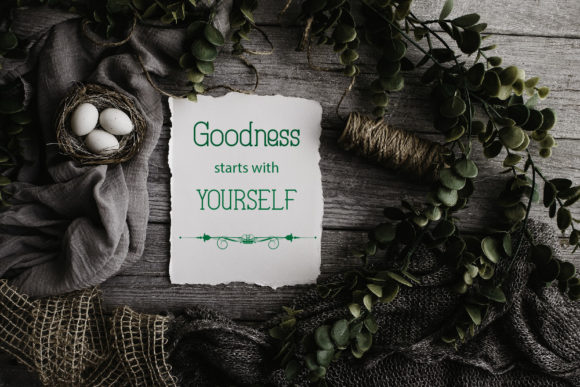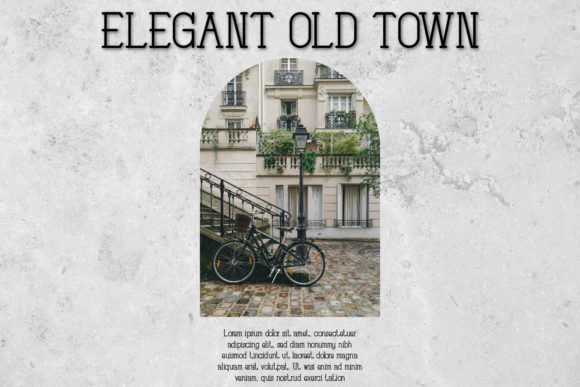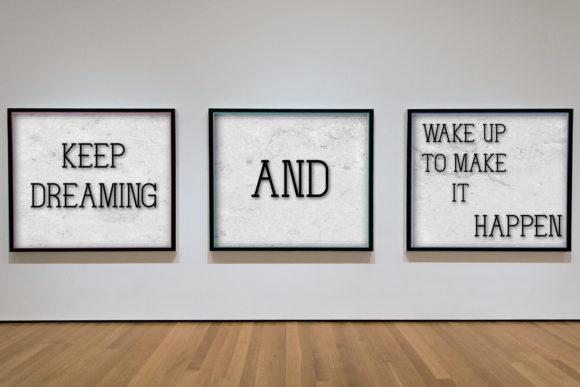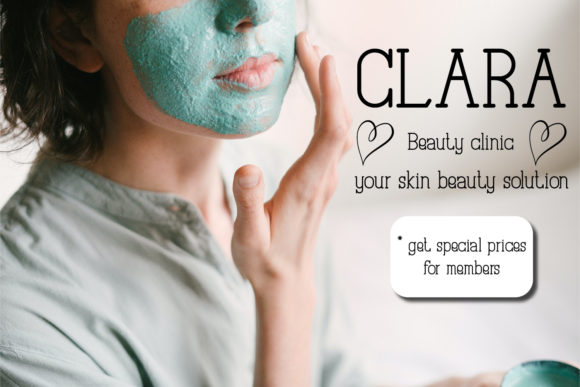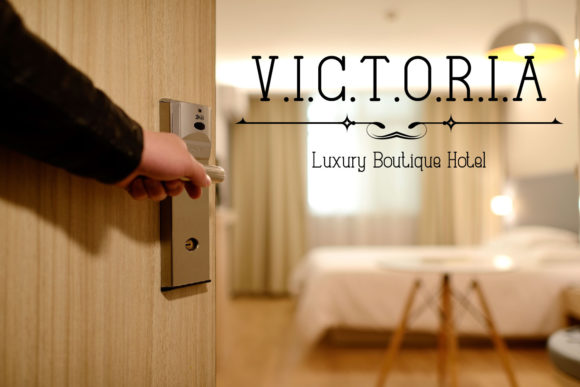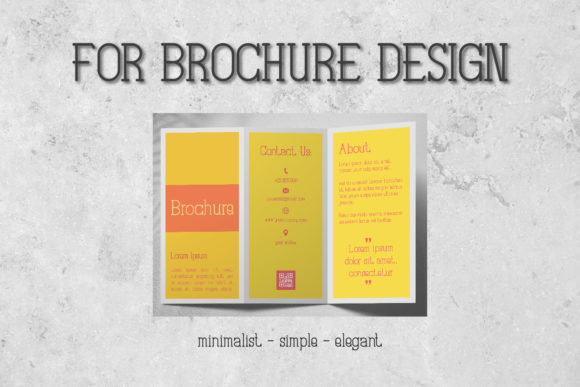
The Designer’s Delight: Getting to Know Corsova Font
I’ll never forget the time I was working on a project for a client who wanted a clean, modern look. I had spent hours browsing through font libraries, but nothing seemed quite right. That was until I stumbled upon Corsova Font. Its tall, thin, and simple lettered slab serif design immediately caught my eye, and I knew I had found the perfect fit. In this article, I’ll share my experience with Corsova Font, its features, and how to make the most of it in your designs.
My Honest Review of Corsova Font
So, what do I love about Corsova Font? Here are a few things that make it stand out:
- ✨ Versatility: Corsova Font is suitable for a wide variety of designs, from elegant headings to simple body text.
- ✅ Readability: The font’s clean and simple design makes it easy to read, even at small sizes.
- 💡 Uniqueness: Corsova Font has a distinct slab serif style that sets it apart from other fonts.
Of course, no font is perfect, and Corsova Font has a few small quirks:
- 🤔 Limited expressiveness: While Corsova Font is great for simple designs, it may not be the best choice for projects that require a lot of personality or flair.
- ⚠️ Kerning issues: As with any font, you may need to adjust the kerning to get the best results, especially when using it in combination with other fonts.
The Story Behind Corsova Font
Corsova Font was designed with the goal of creating a clean, modern font that could be used in a variety of contexts. The designer, inspired by the simplicity and elegance of classic typography, set out to create a font that would be both versatile and timeless. With its tall, thin letters and simple slab serif design, Corsova Font has become a popular choice among designers and crafters.
| Font Name | Corsova Font |
| Author | pictranoosa |
| What is Corsova Font best suited for? | Corsova Font is suitable for a wide range of designs, including headings, body text, and titles. Its clean and simple design makes it a great choice for projects that require a modern look. |
| Is Corsova Font available in different weights? | Yes, Corsova Font comes in a range of weights, making it suitable for a variety of design applications. |